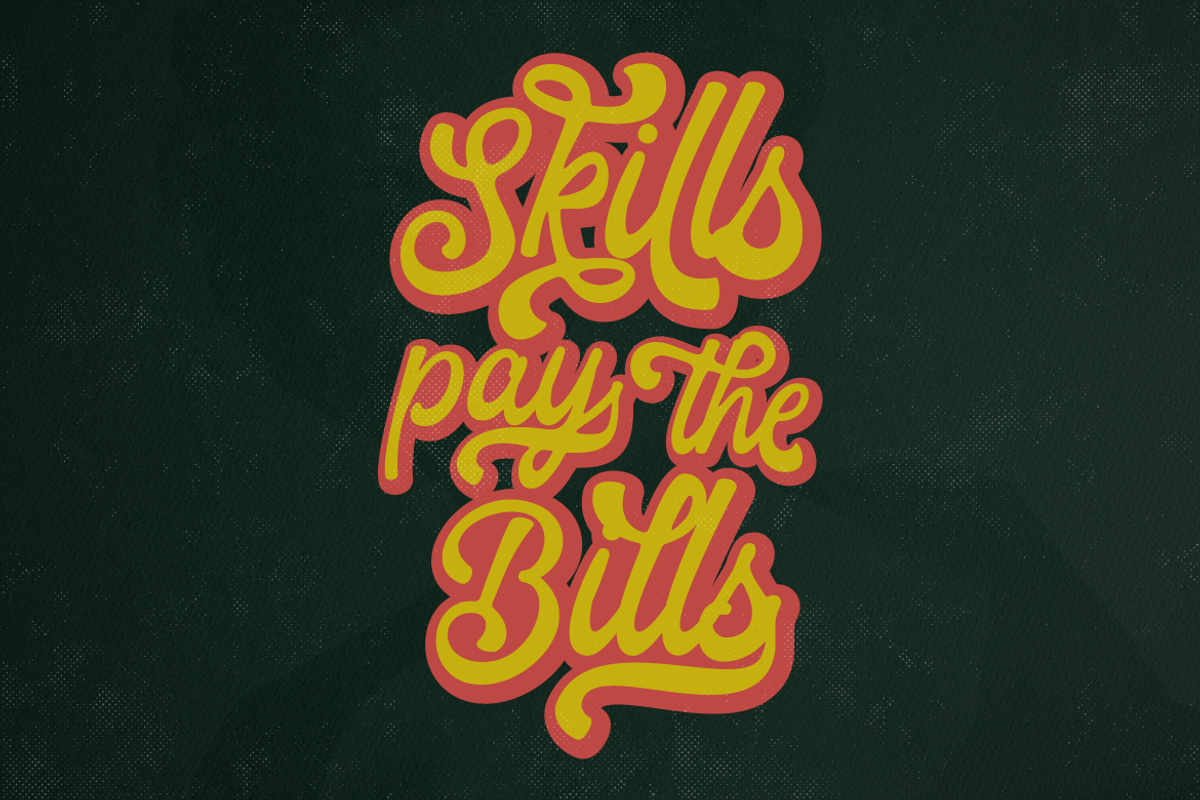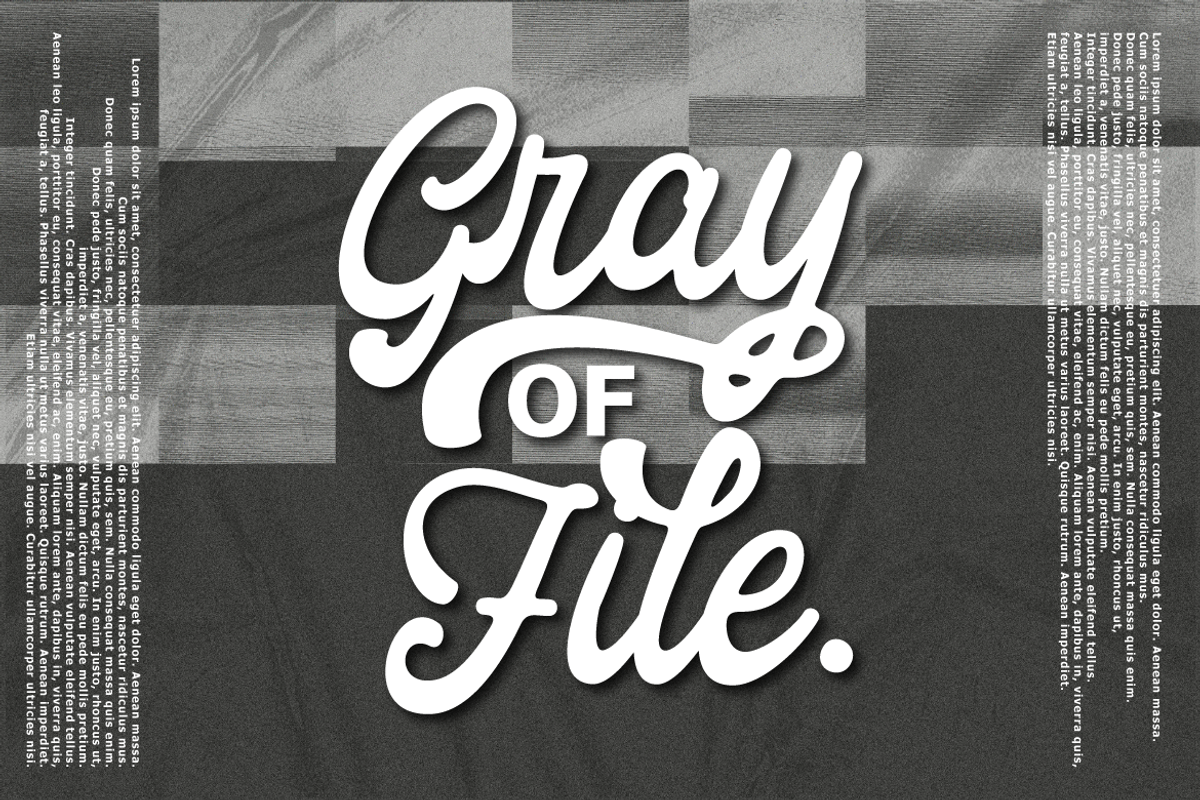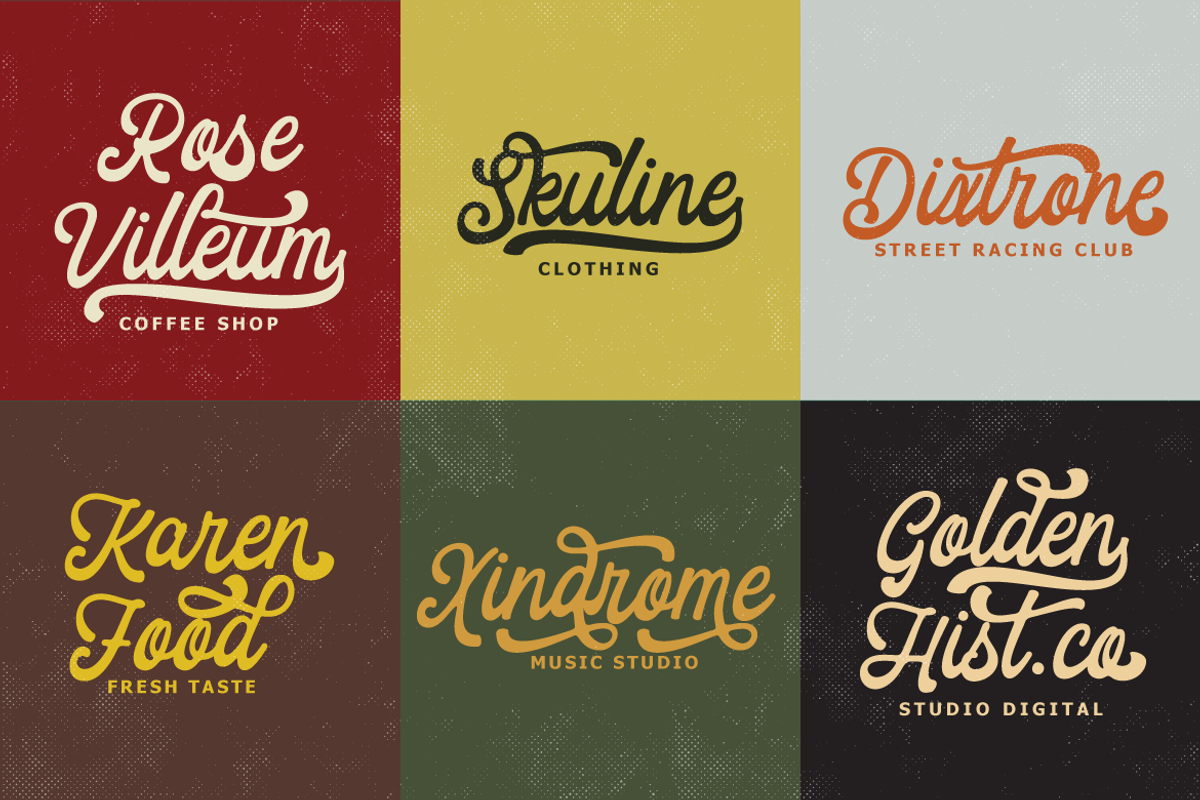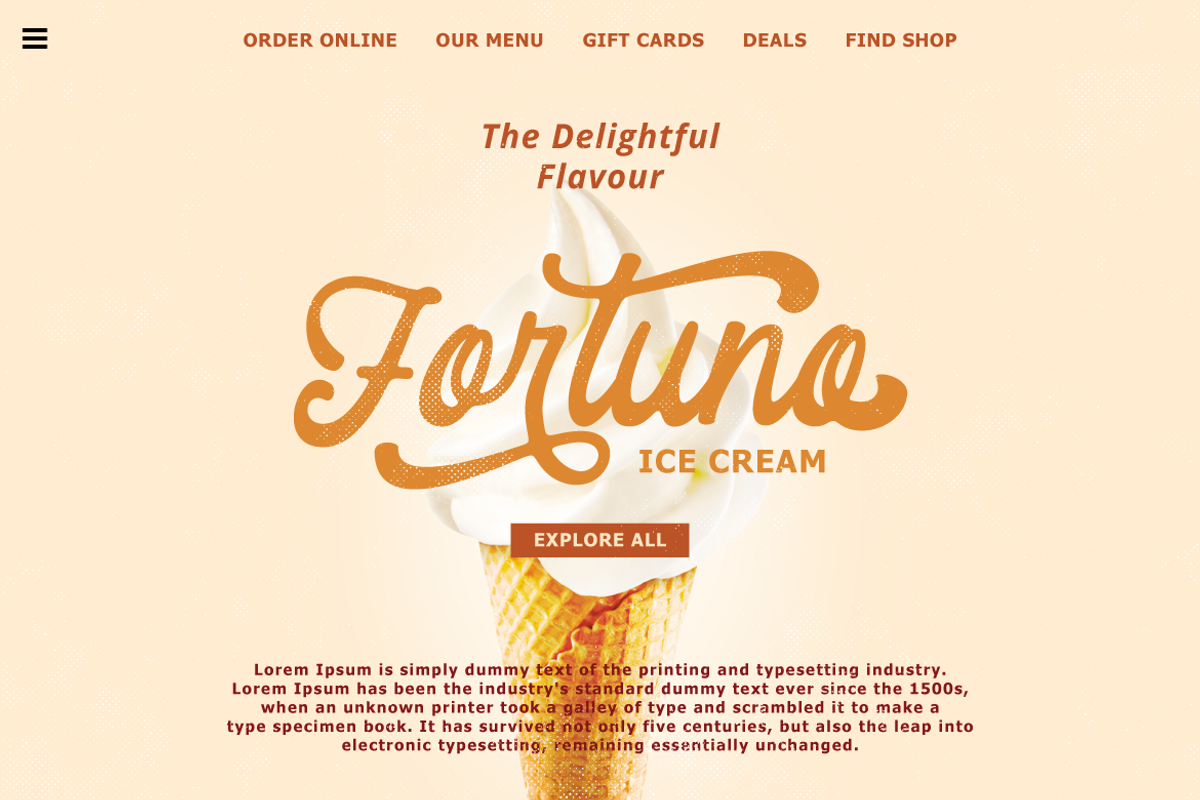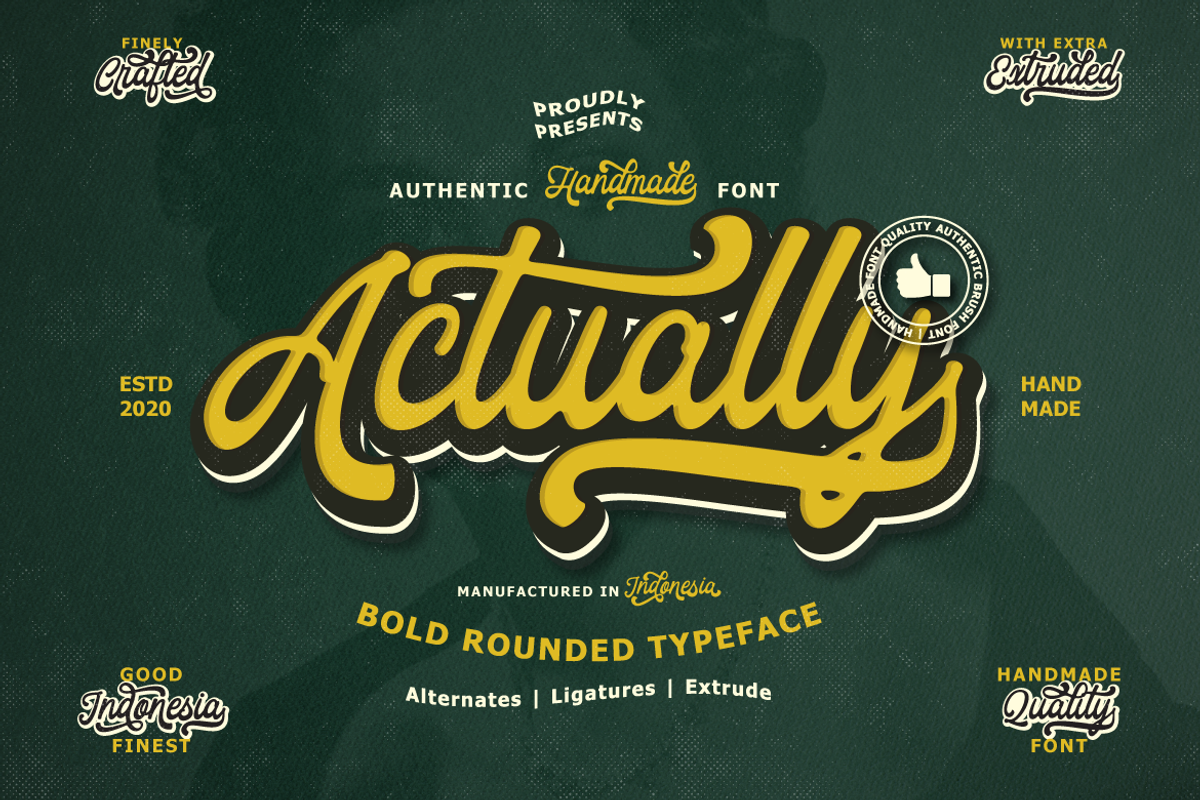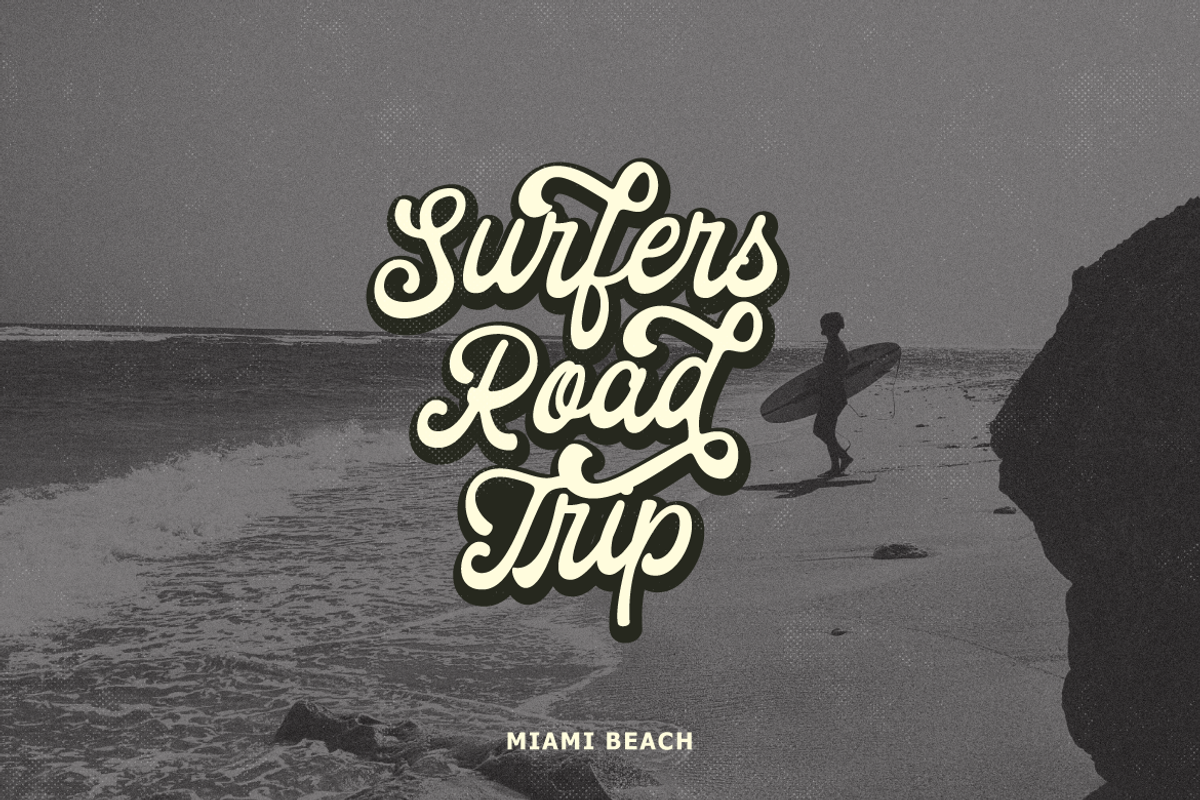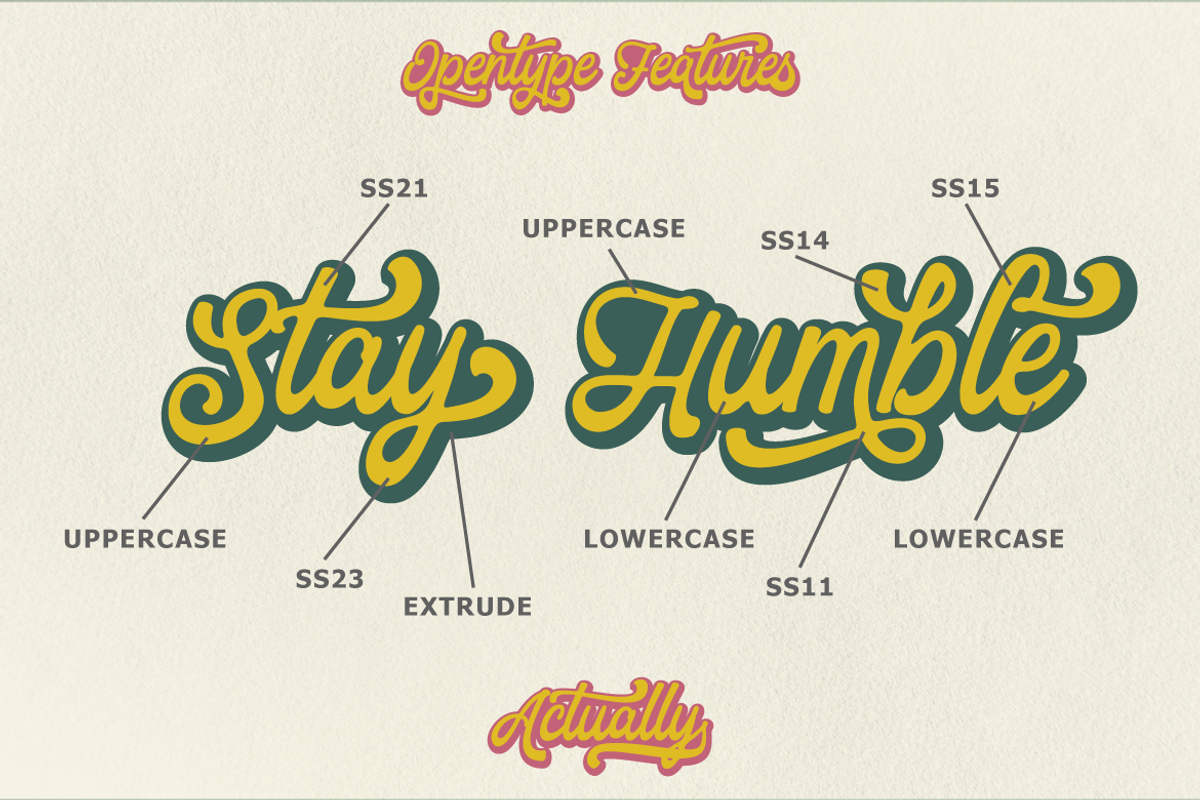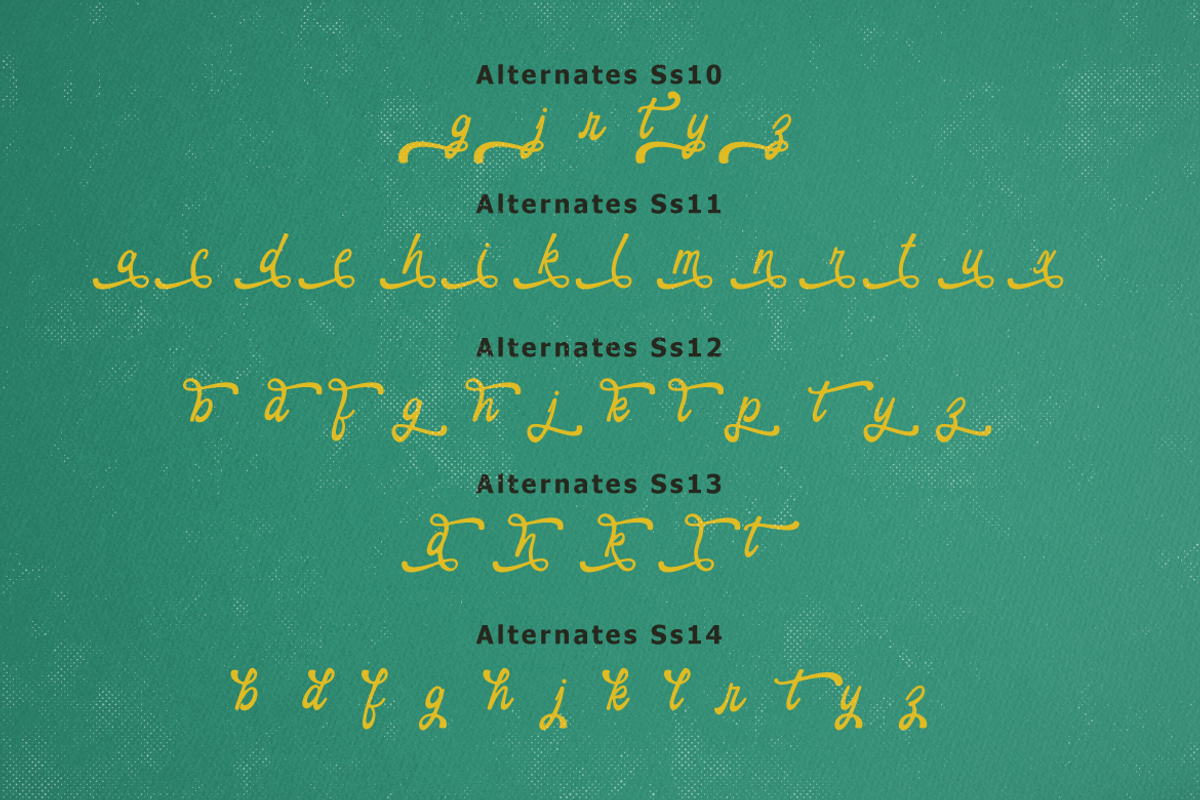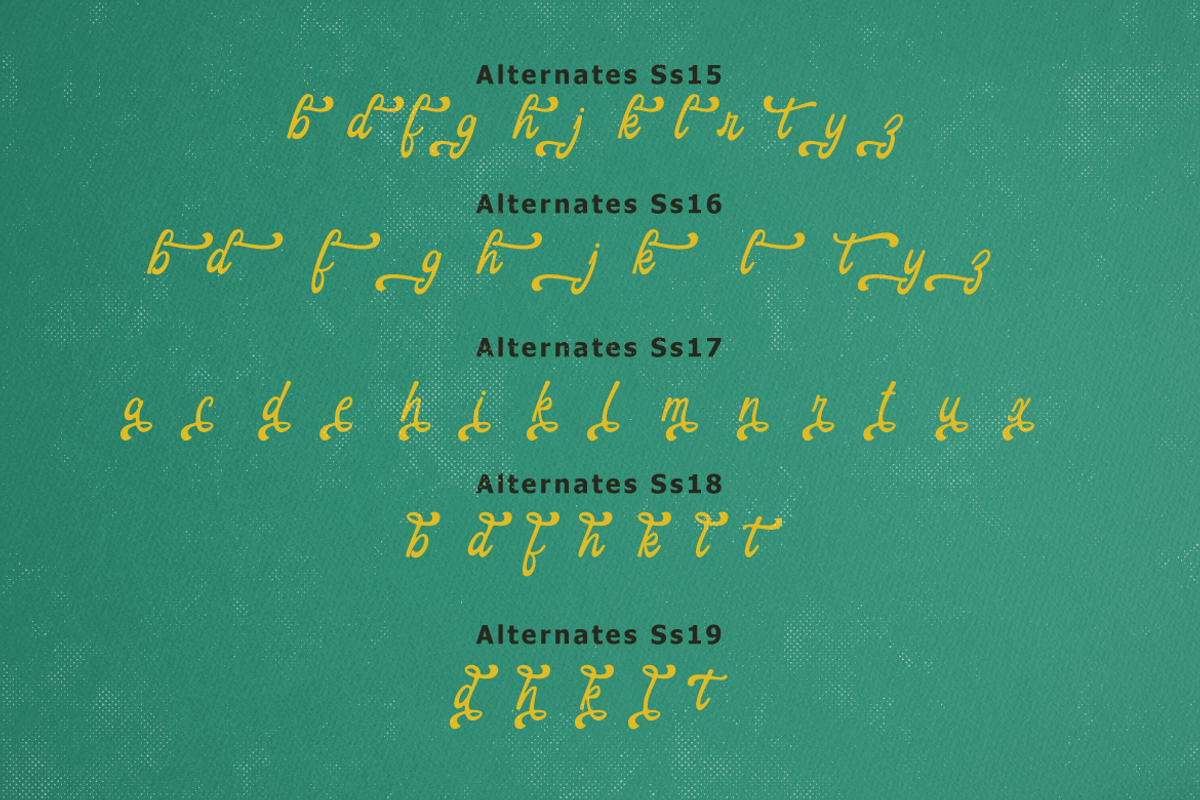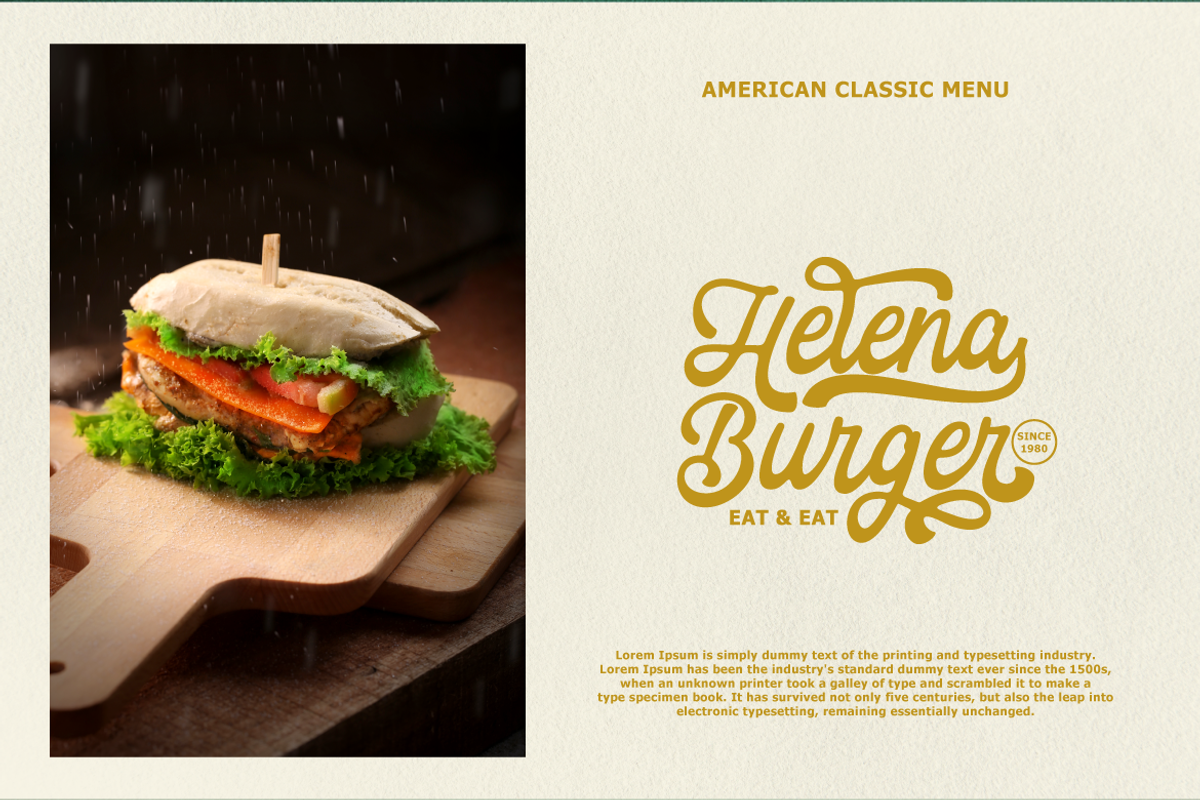
Actually Script
Introducing Actually Script A new carefully crafted and nicely balanced curves on a script typefaces with personality. You can use it as a logo, badge, insignia, packaging, headline, poster, t-shirt/apparel, greeting card, and wedding invitation.
The flowing characters are ideal to make an attractive message. Mix and match Actually Script with a bunch of alternative characters to fit your project.
The alternative characters in this font were divided into several OpenType features such as Stylistic Alternates, Stylistic Sets, and Ligature. The OpenType features can be accessed by using the OpenType program such as Adobe Illustrator, Adobe Photoshop, and Adobe InDesign.